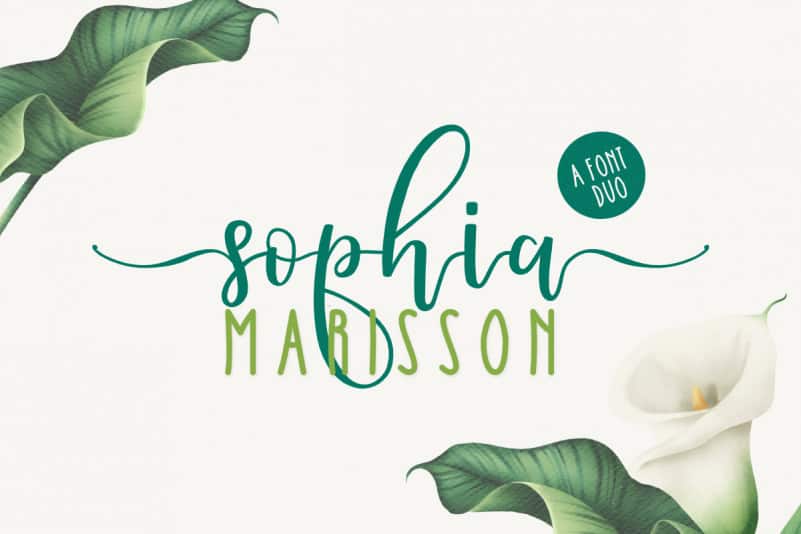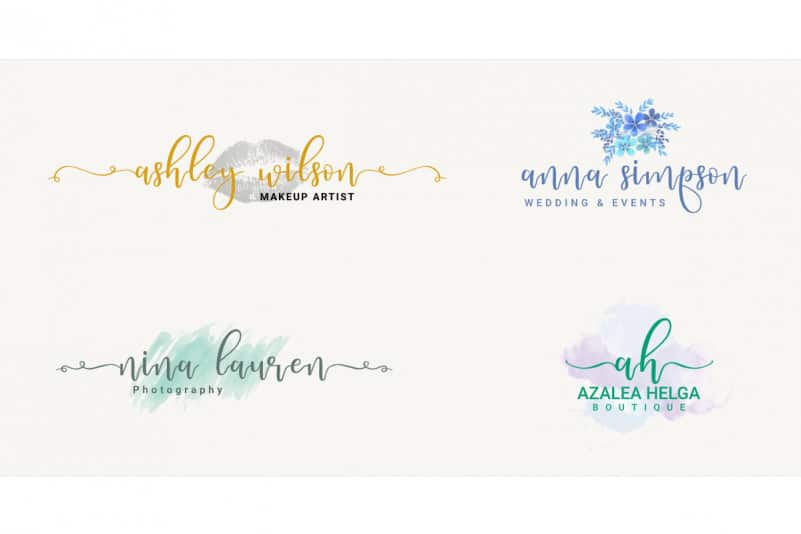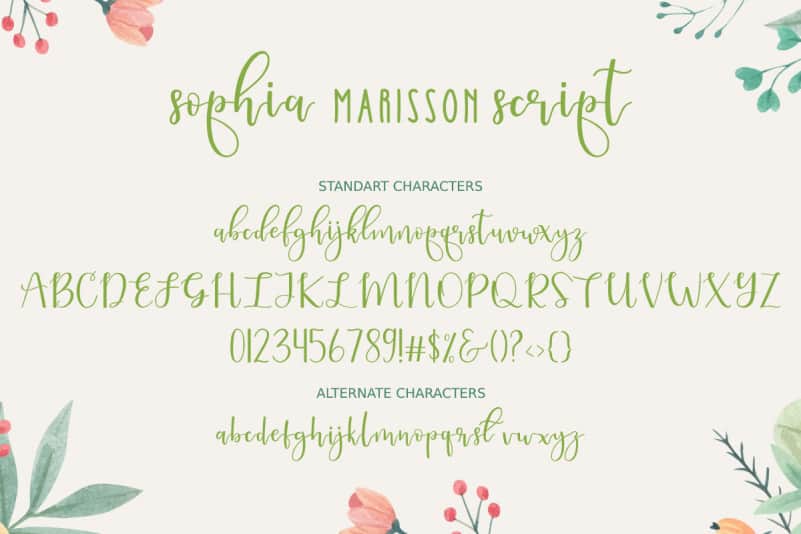
Sophia Marisson Script Font Duo
Sophia Marisson Script Font Duo is a match made in heaven. This handwritten font is the perfect fit for all of your logos, branding, social media, and crafty DIY projects.